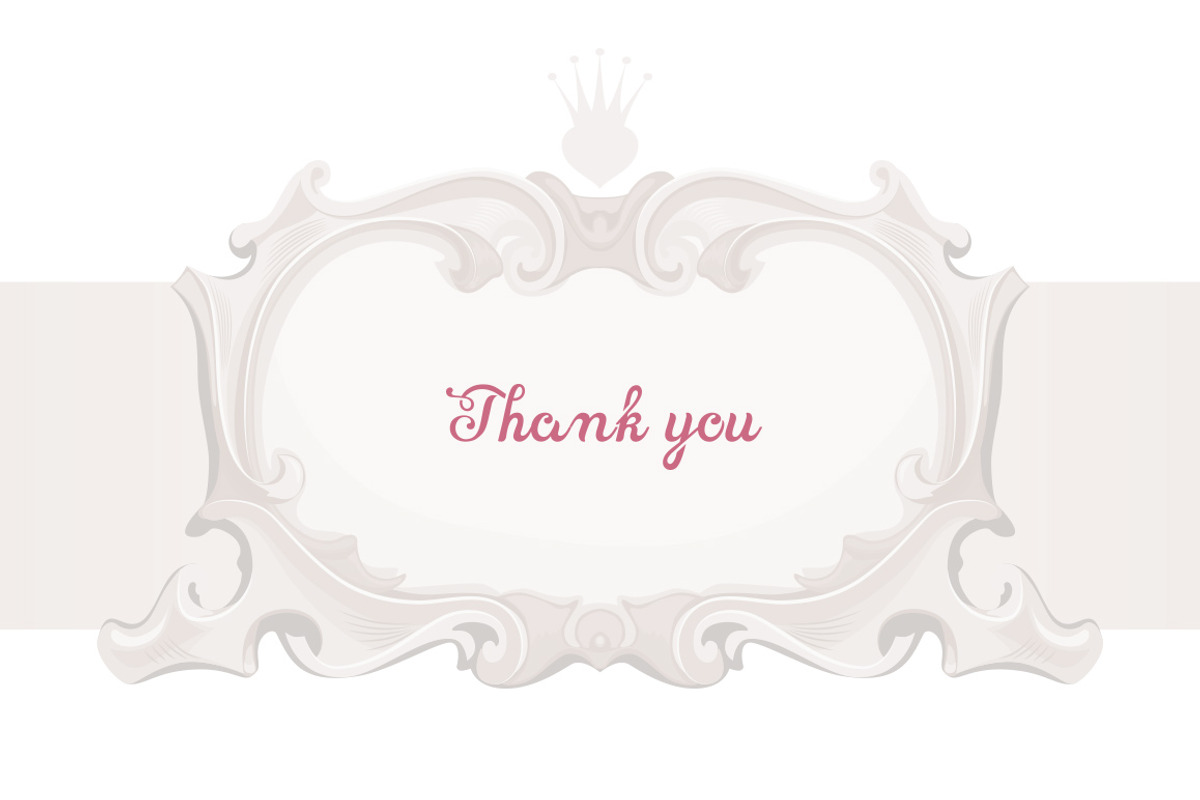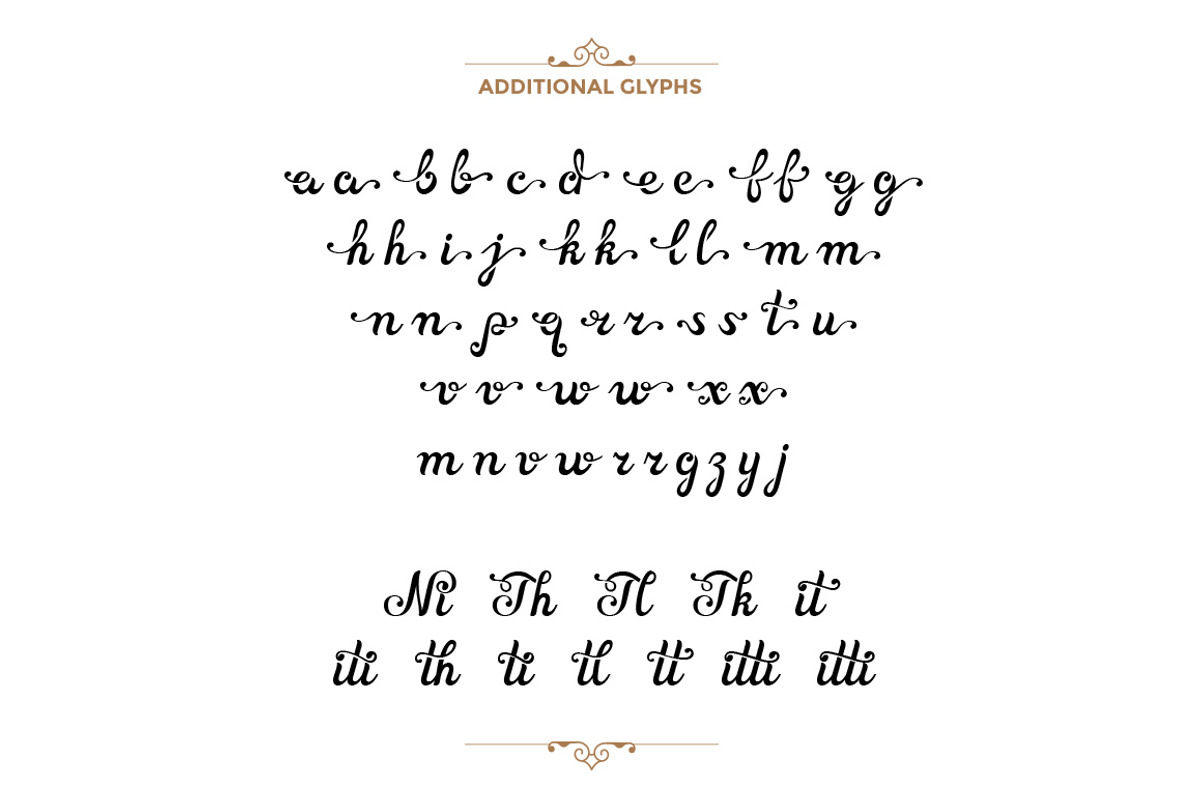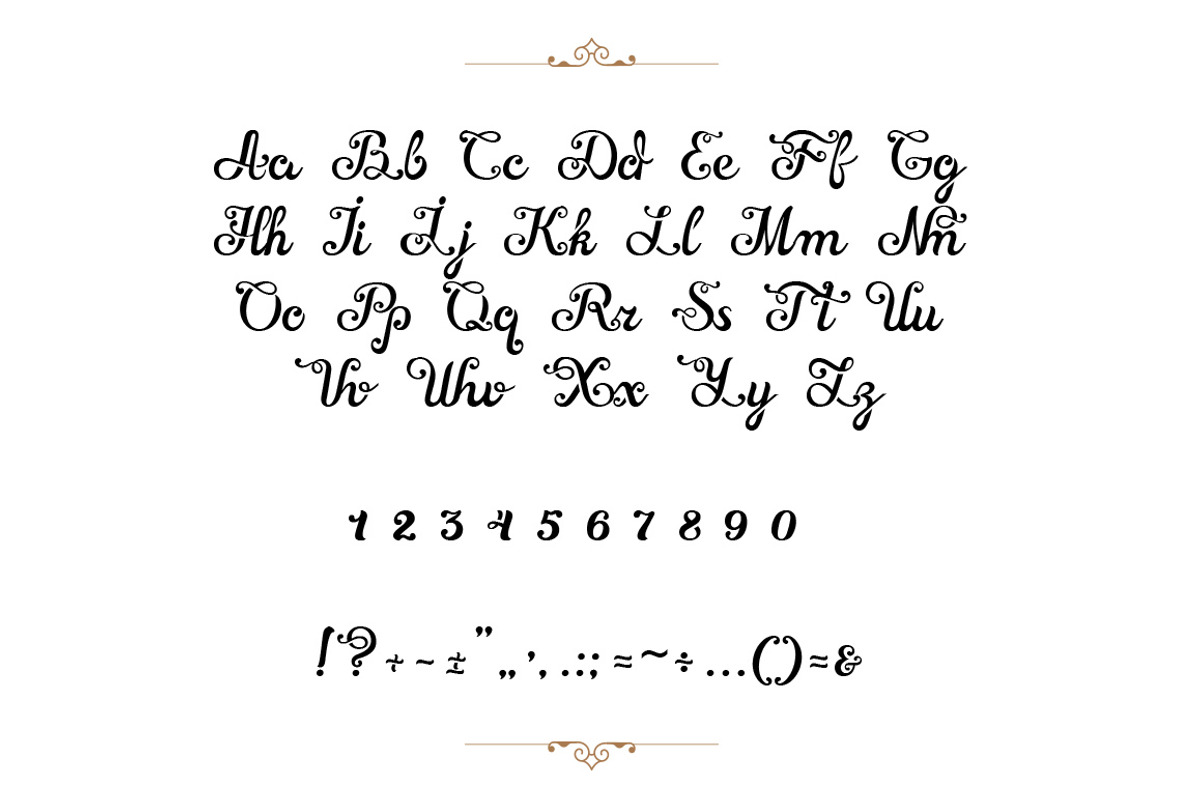
Wonderscript Calligraphic Font
Wonderscript Calligraphic Font by Sentavio is a font selected for branding, posters, packaging, typography.
- Made with Love, Magic and Wonder:) Alternate characters contain with opentype features.
- Stylistic alternates, Ligature and more.
Why Wonderscript Calligraphic Font is worth a look
Wonderscript Calligraphic Font by Sentavio fits naturally into Branding, posters, packaging, typography.